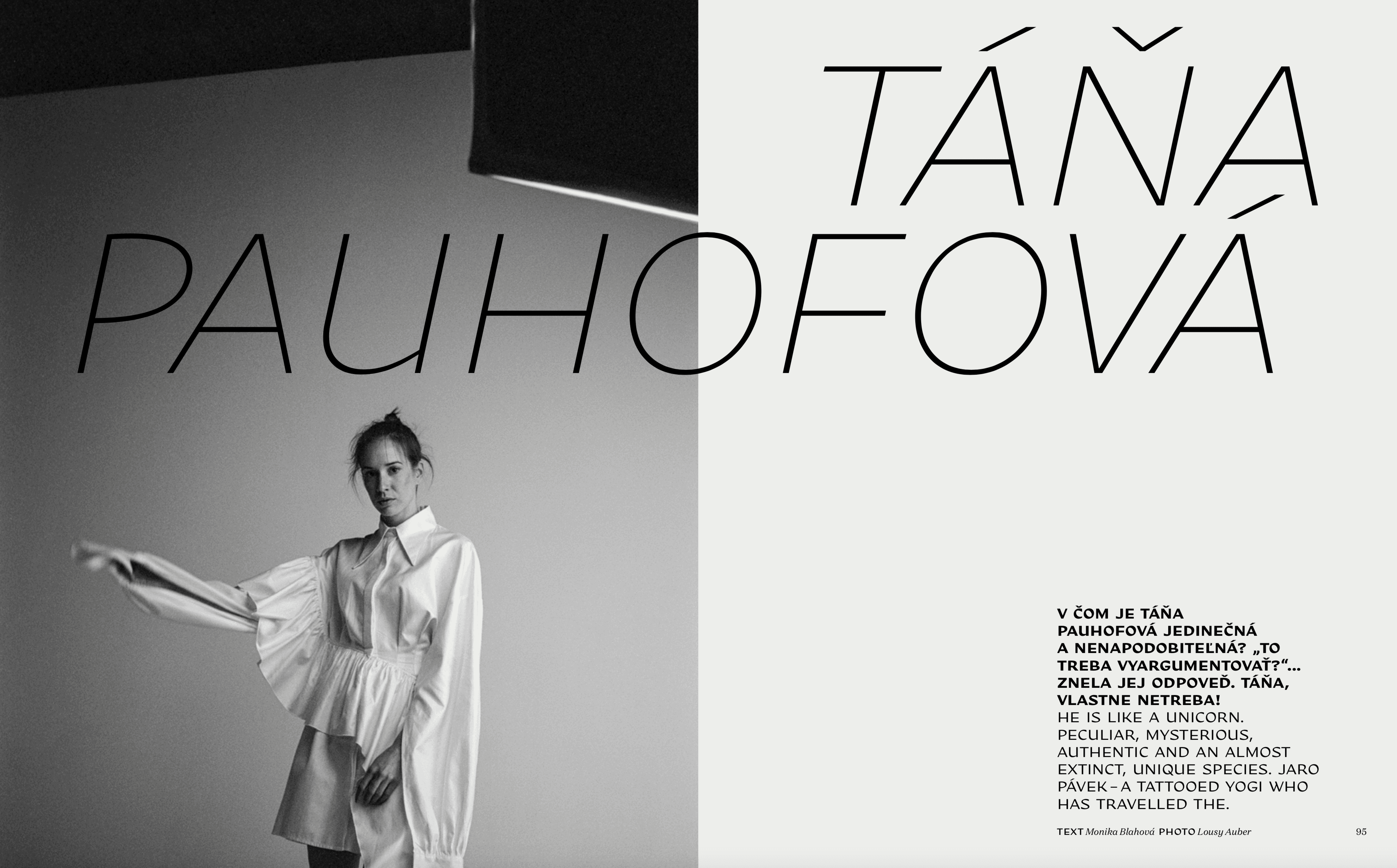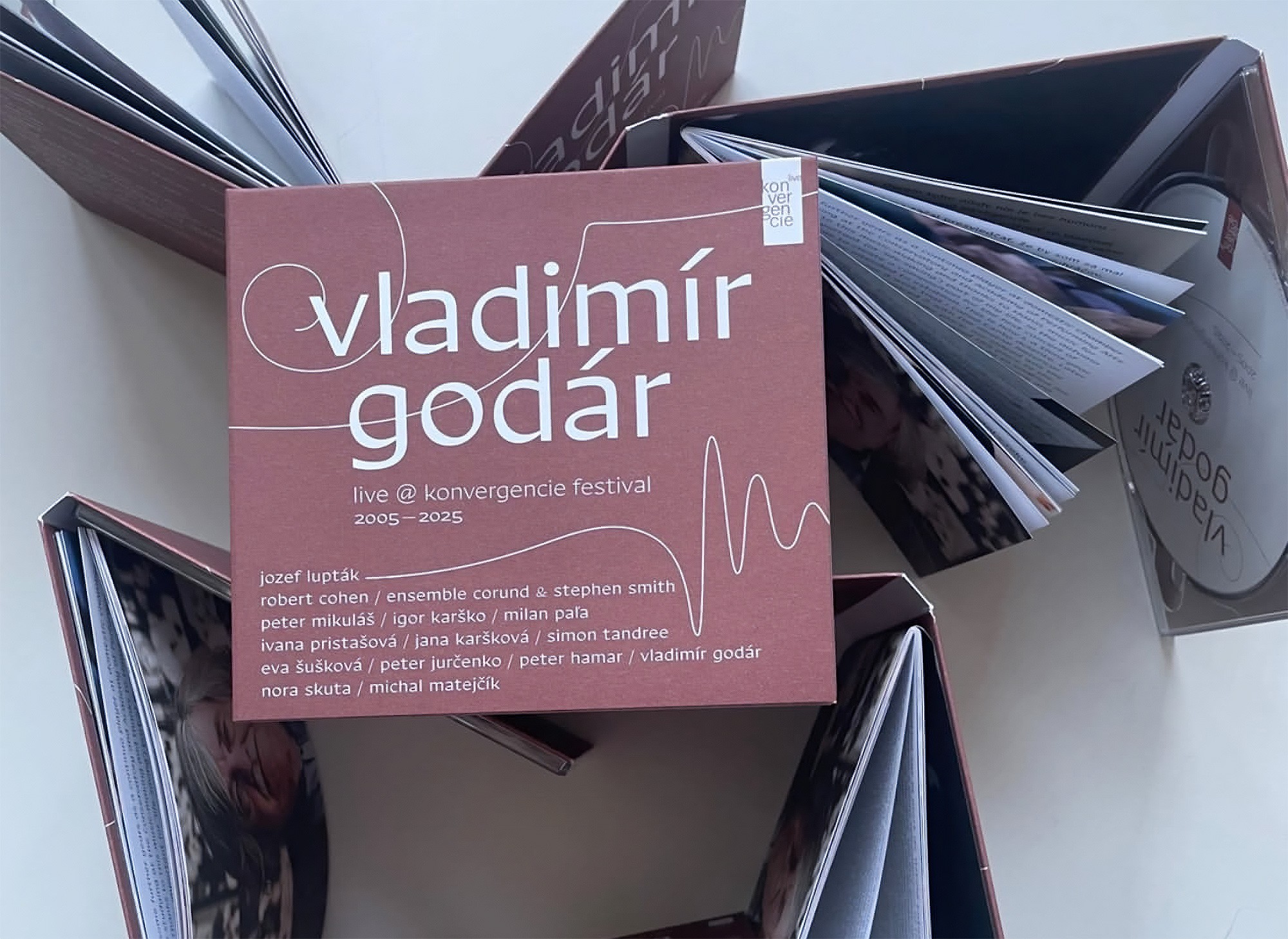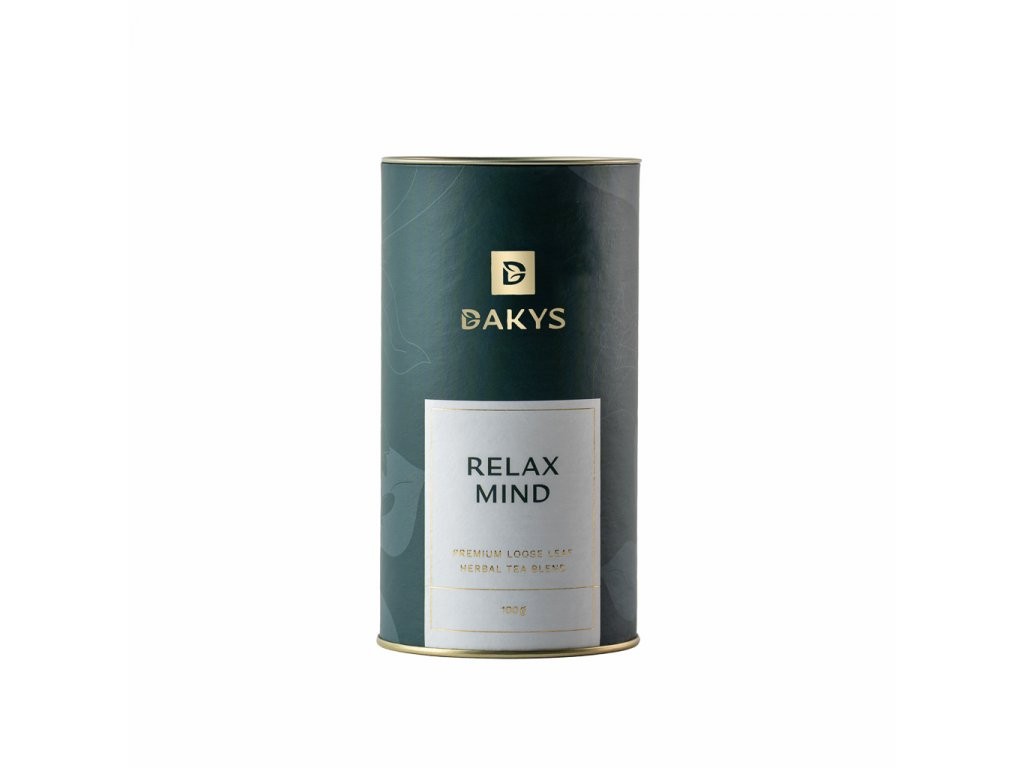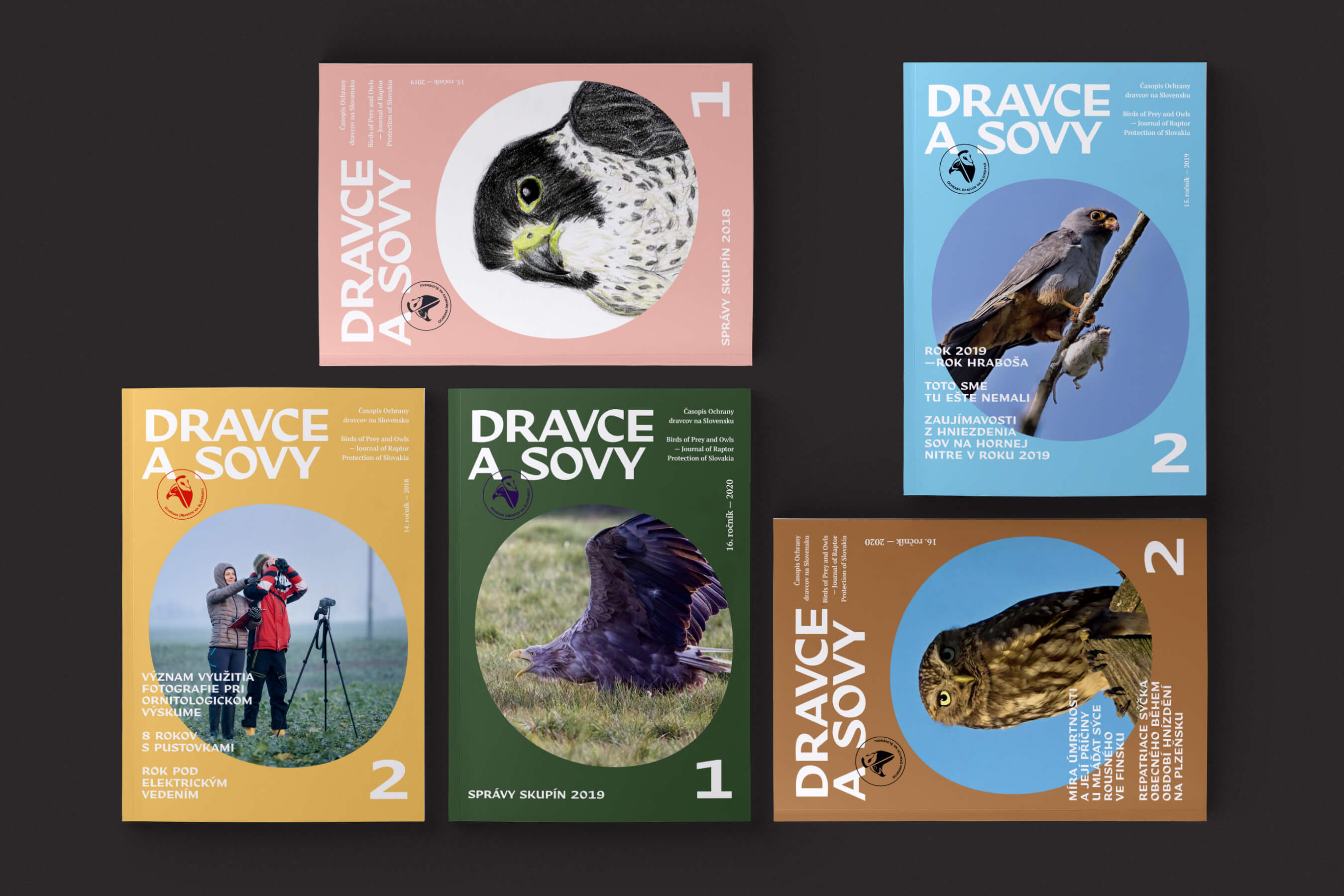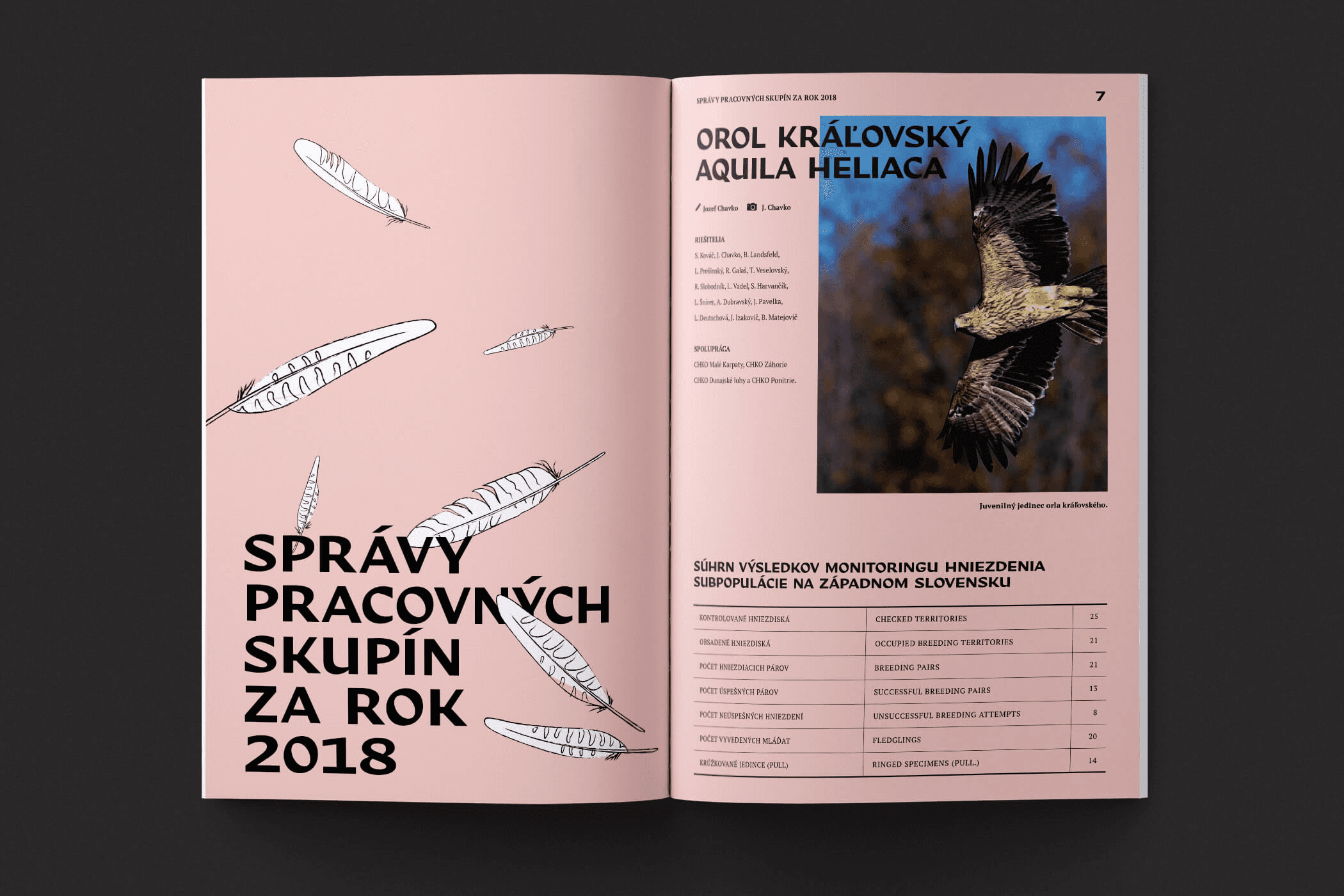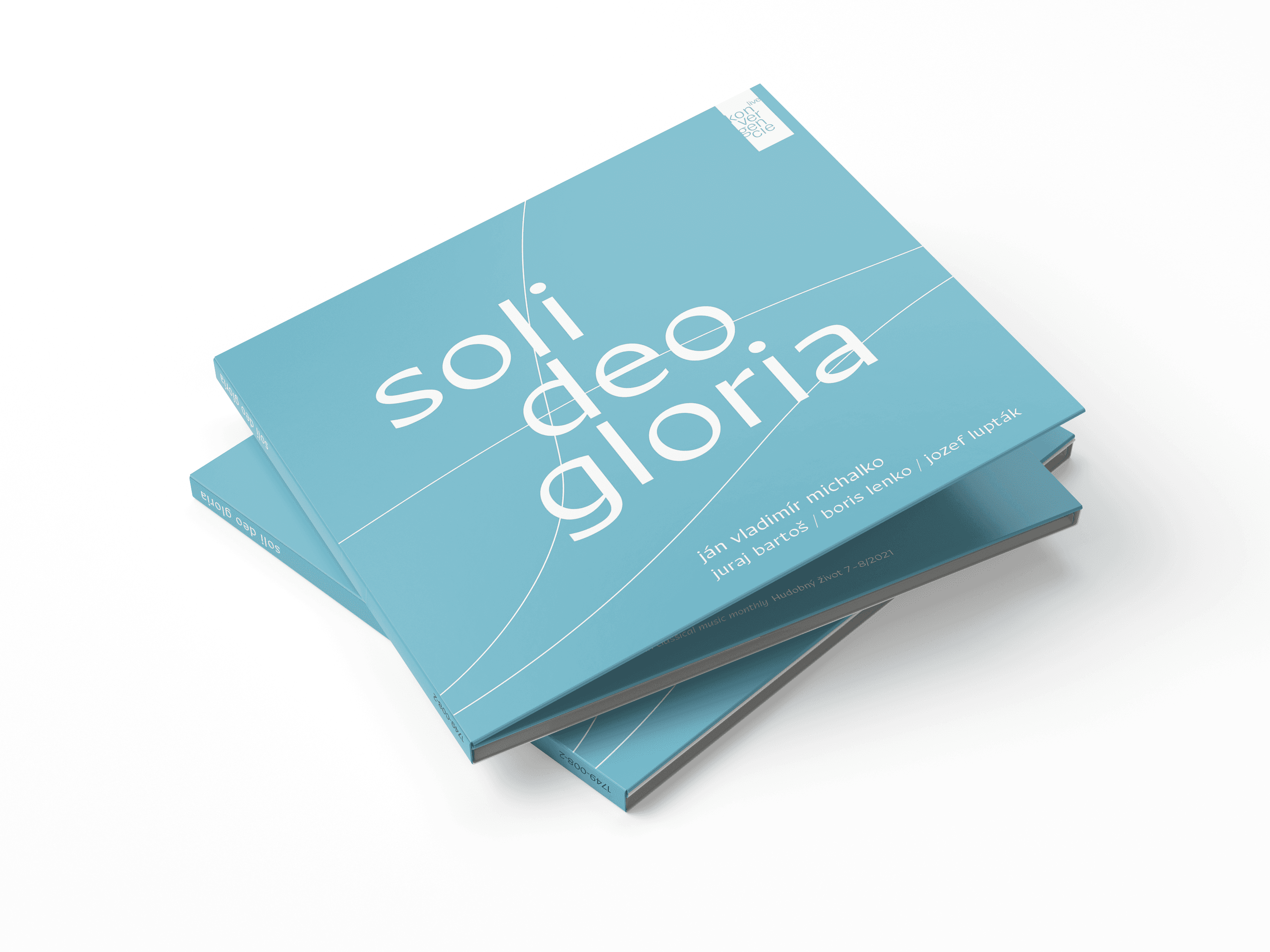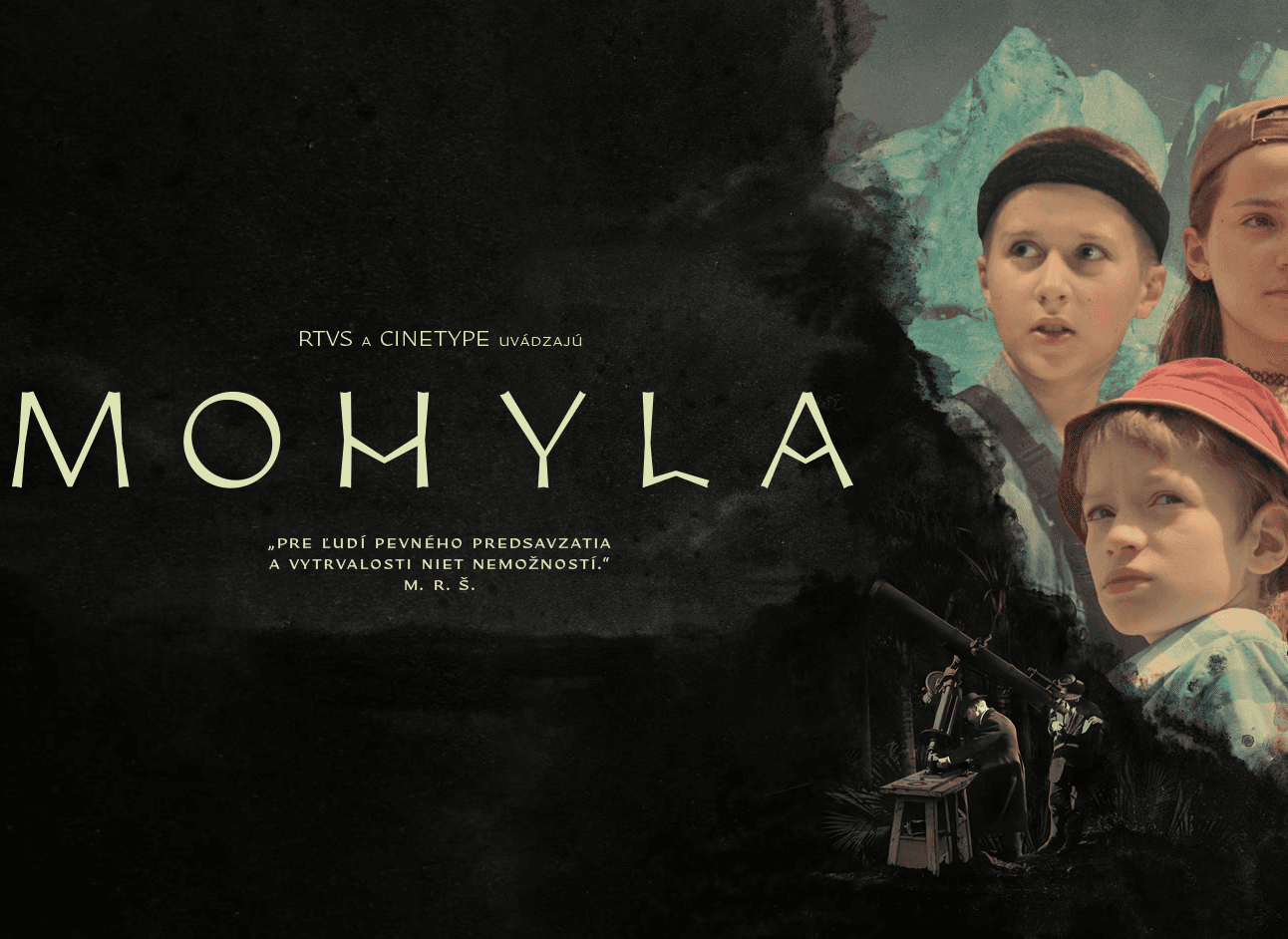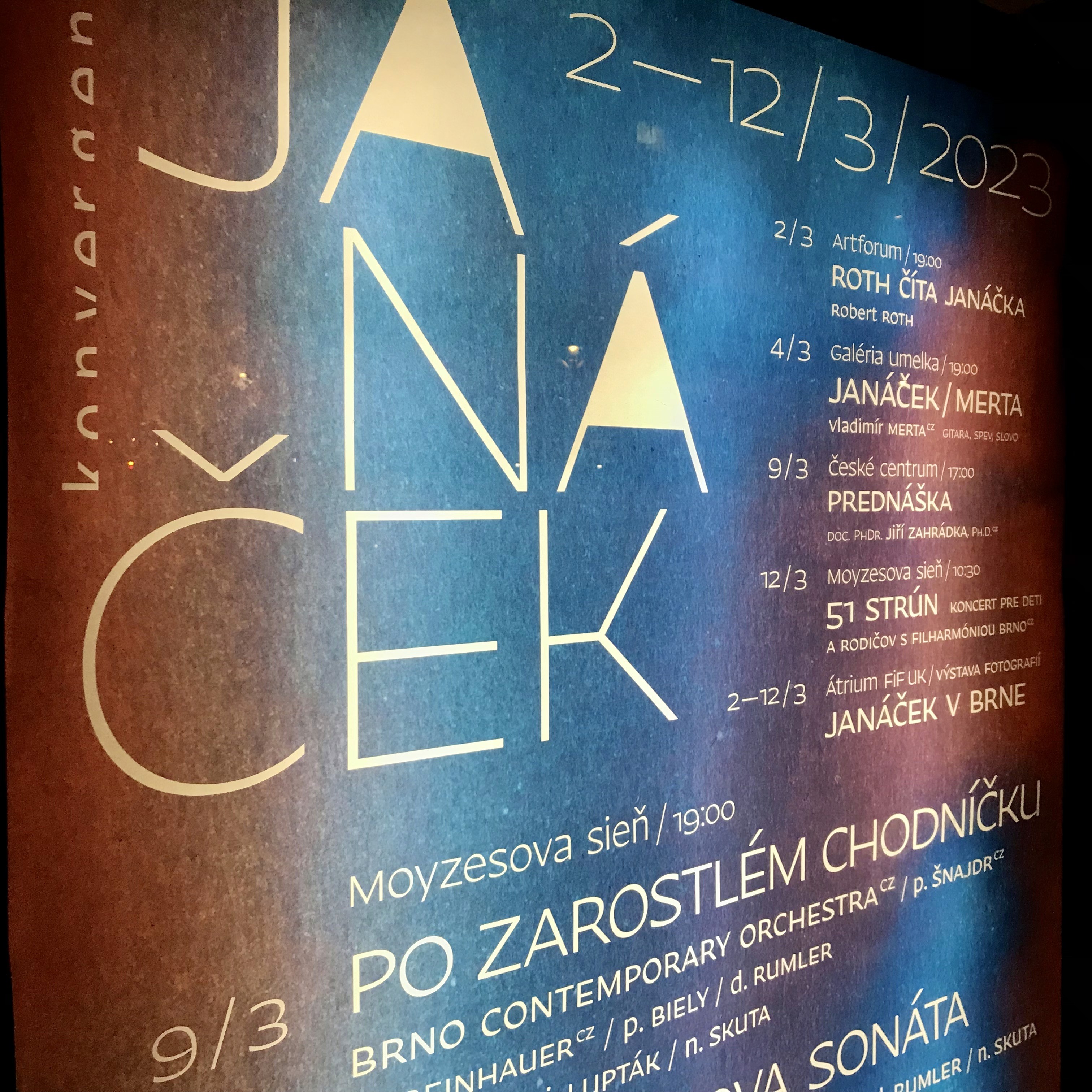
About Nakoso Typeface
Fresh and playful sans-serif
based on broad-nib pen calligraphy
and inspired by sign painting
Nakoso is a fresh and playful sans-serif typeface based on broad-nib pen calligraphy and inspired by sign painting. Its contrast angle is visibly slanted, and influenced the choice of name (“nakoso” in slovak = slanted).
Nakoso can be described as both a text and a display typeface. It consists of nine weights and each one of them is meant to be used on text or display. Light and Dark weights are supposed to be used for large inscriptions and headlines. “Neutral” weights (from Regular to Bold) are designed for small sizes. The drawing of three font masters (Thin, Regular, Black) made room for an individual approach to spacing (letter space). Display variants therefore have a tighter letter space (+ kerning), and the spacing of text variables is more adequate for small sizes. The usability of the typeface family is enhanced by the presence of true cursives, small capitals, old style numbers and other useful glyph sets.
From the aesthetic point of view, the typeface’s most interesting feature is the use of a visibly slanted contrast axis, as influenced by broad nib calligraphy. This type of calligraphy is often easy to identify because of its visible pen angle. Stroke marks after broad nib pen were visibly emphasized. Another source of inspiration was American sign painting, which influenced capital letters construction, by placing the middle bars a little bit lower than usual.
The strength of Nakoso relies in its universality, both for running text and headlines. It is suited for magazines, visual identity programs, advertising text and small print. Calligraphy and sign painting features bring playfulness into the digital type. Nakoso departs from tradition and celebrates the most recent design trends of the 21st century.
Sans-serif, Text & Display